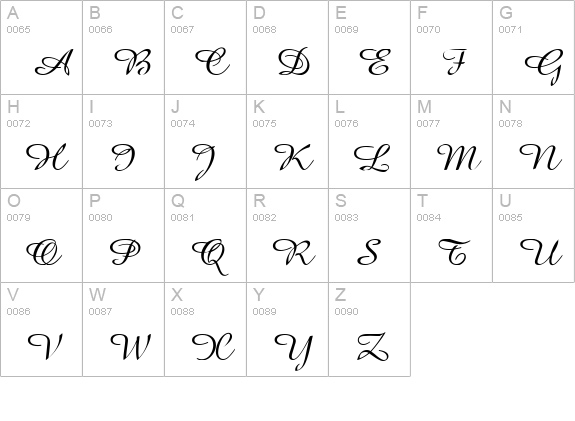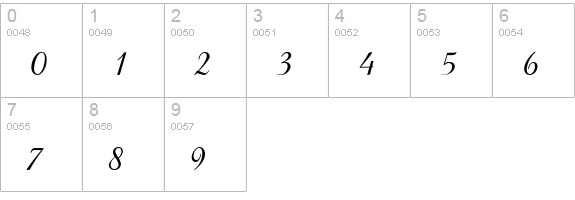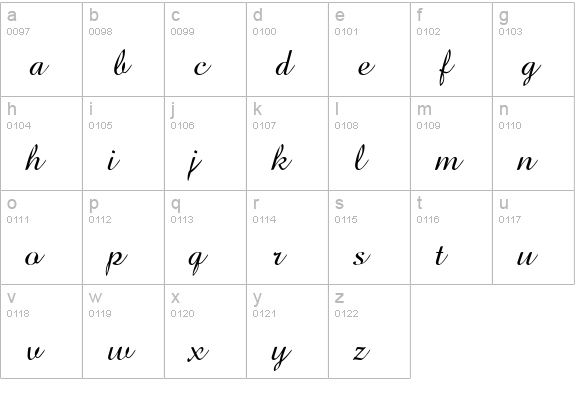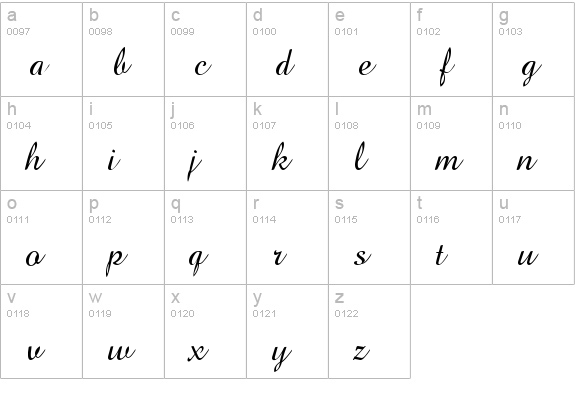
Amaze Normal Font Details
Amaze Normal is the standard, neutral variant in the Amaze typeface family \xE2\x80\x94 well suited to general body text, paragraphs, and standard typographic work.
Discover the captivating elegance of Amaze Normal font, a versatile typeface that effortlessly combines sophistication with modernity. With its clean lines and balanced proportions, this font exudes a timeless appeal that is perfect for a wide range of design projects. Amaze Normal font is a true gem for designers looking to add a touch of refinement to their work. Whether you are creating branding materials, editorial designs, or web graphics, this font will elevate your projects to new heights. Best of all, Amaze Normal font is available for free download at FontsMarket.com. Embrace the beauty and versatility of this exquisite typeface and let your creativity shine with every project you undertake.